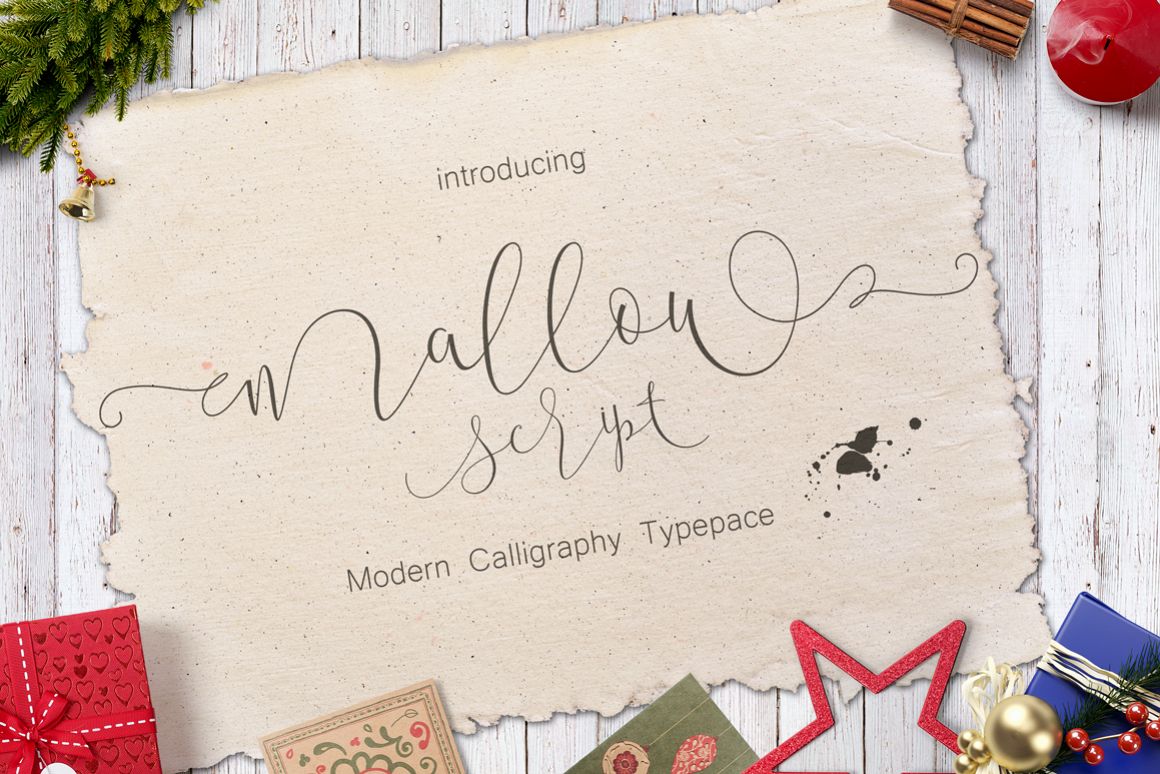
Mallow
Mallow Script.
Wallow Script is Modern Calligraphy. This font was designed by handwriting, and it has a modern and unique forms of calligraphy, the writing style is very natural.
The Features of this fonts is:
Standart ligatures
Stylistic Alternates
Stylistic Swash
Stylistic sets
Mallow Have PUA Unicode (Private Use Areas)